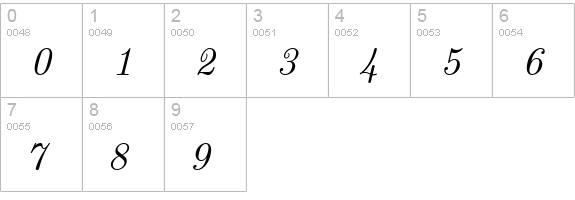
TeXplus RM Italic is a distinctive, italic variant in the TeXplus typeface family \xE2\x80\x94 well suited to design and typography projects.
TeXplus RM Italic is a stunning and elegant font that exudes sophistication and style. With its refined curves and delicate strokes, this font is perfect for adding a touch of elegance to any design project. Whether you're creating a logo, designing a website, or working on a print publication, TeXplus RM Italic will elevate your work to new heights. This font's italic style adds a sense of movement and dynamism, making it ideal for conveying a sense of energy and excitement. It is also incredibly versatile, making it suitable for a wide range of design applications. Whether you're designing for a high-end fashion brand, a luxury hotel, or a creative agency, TeXplus RM Italic will bring a touch of sophistication to your project. One of the best things about TeXplus RM Italic is that it is available for free. Yes, you heard that right! This amazing font is freely available to download at FontsMarket.com. Now you can add a touch of elegance to your designs without breaking the bank. Simply head over to FontsMarket.com, download TeXplus RM Italic, and start creating stunning designs today. In addition to its stunning aesthetics and availability, TeXplus RM Italic is also highly legible and easy to read. This makes it perfect for both large-scale designs and small text, ensuring that your message is clear and impactful. Whether you're designing a poster, a brochure, or a website, TeXplus RM Italic will make sure your content shines. So why wait? Download TeXplus RM Italic from FontsMarket.com today and unlock a world of elegance and sophistication for your design projects. With its refined curves, delicate strokes, and free availability, this font is a must-have for any designer looking to add a touch of class to their work. Get creative and start designing with TeXplus RM Italic now!